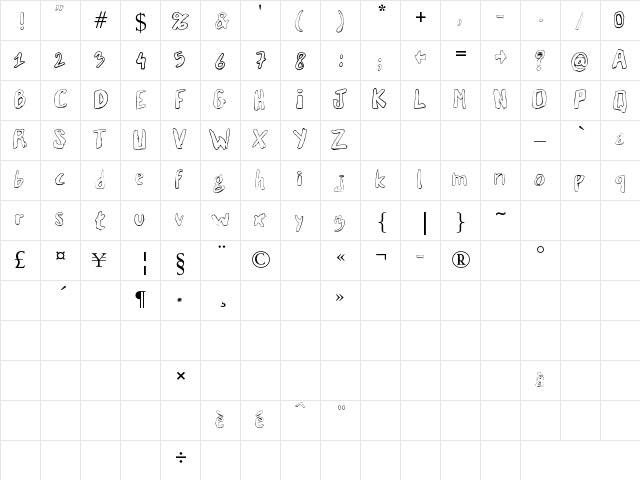
Vaille Regular
Design Context for Vaille Typeface
Vaille is a composed and adaptable typeface that performs quietly and consistently across a wide range of design contexts.